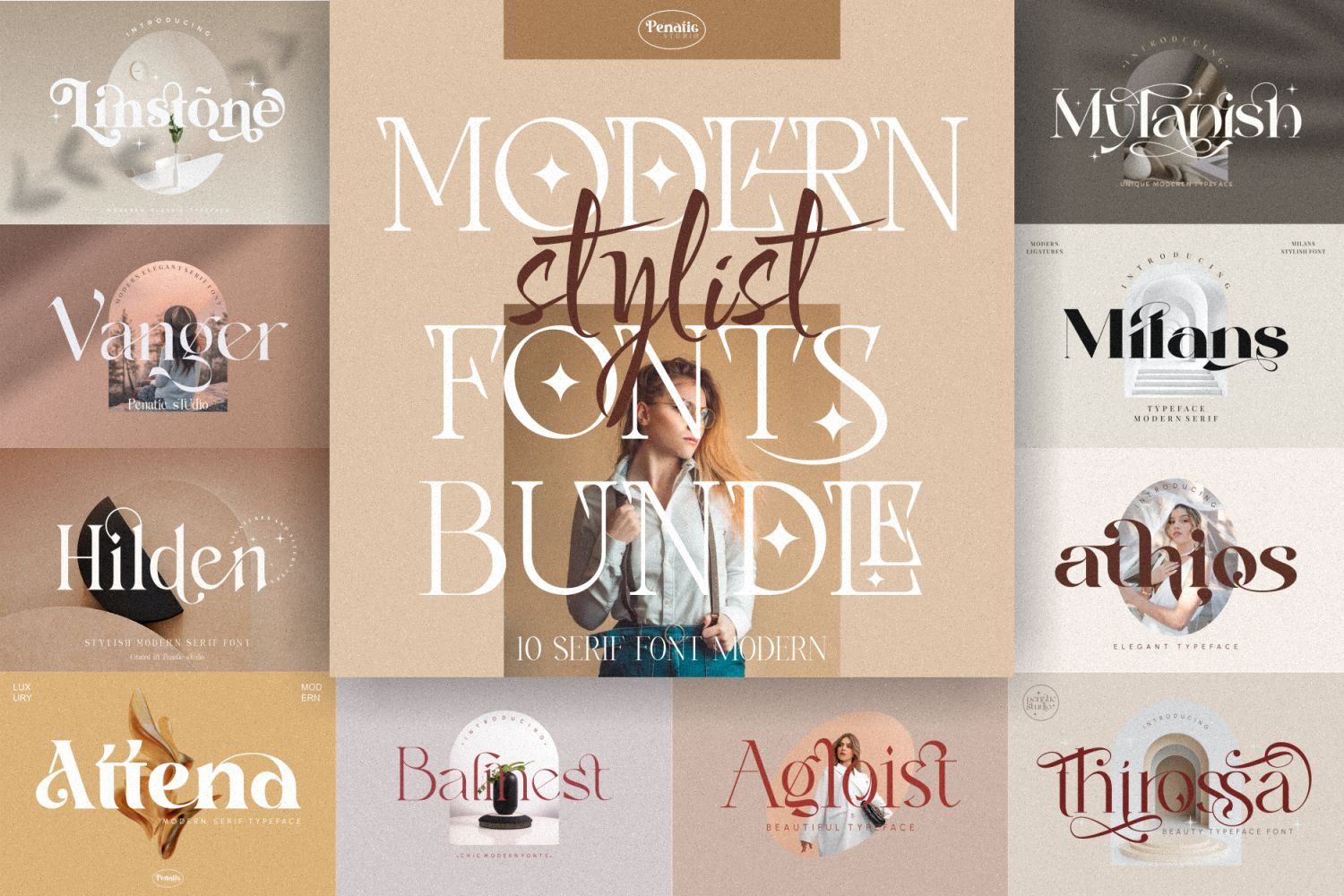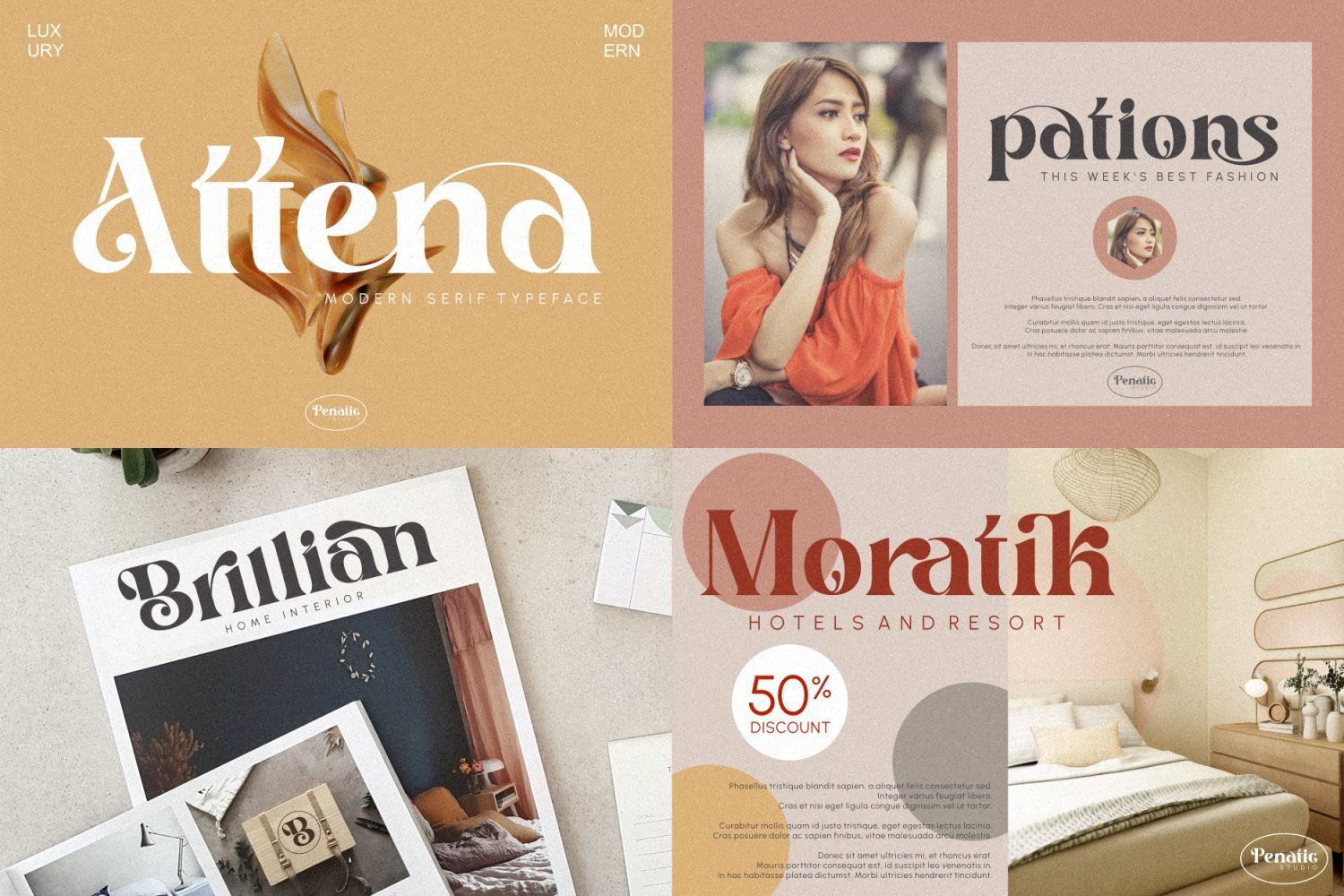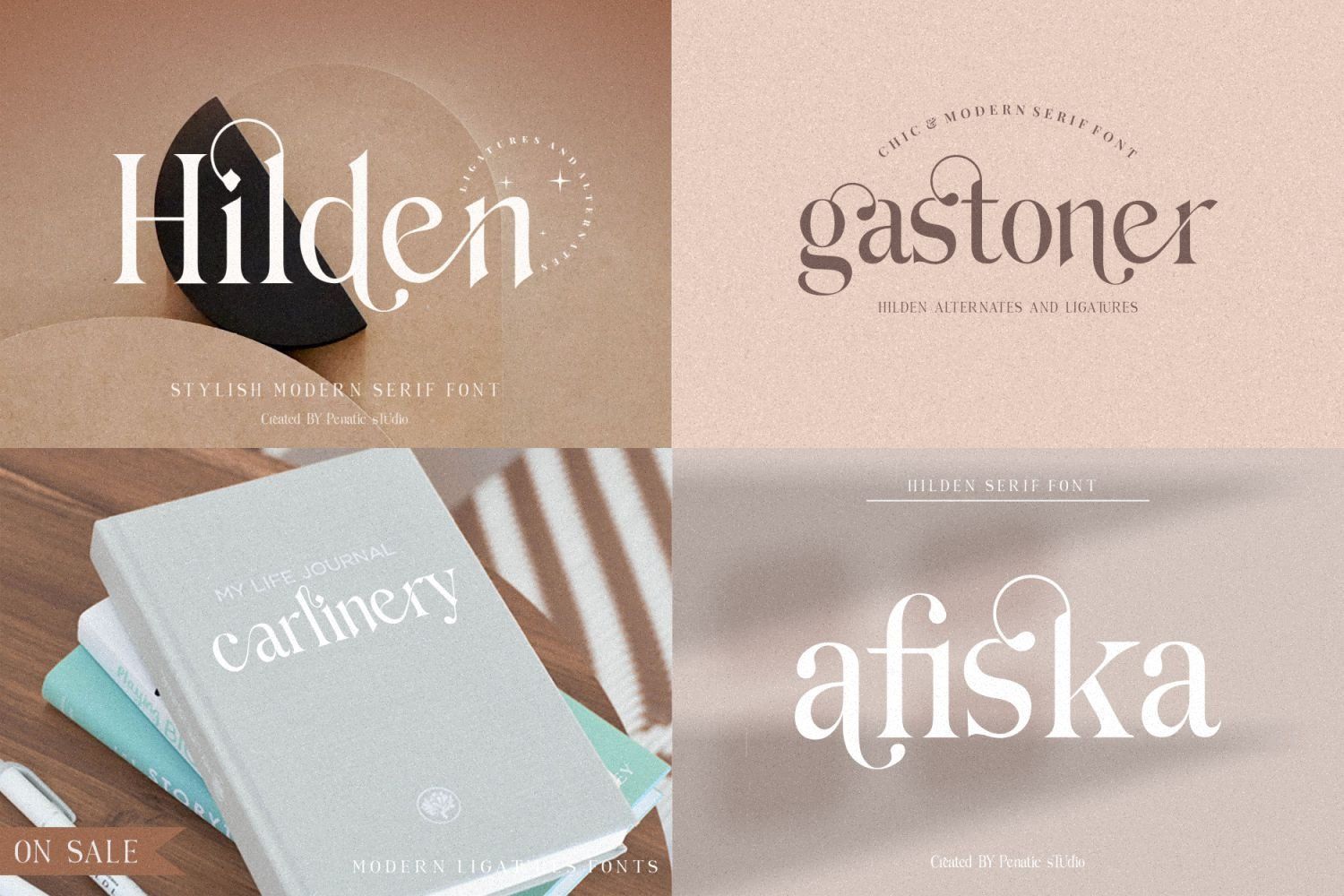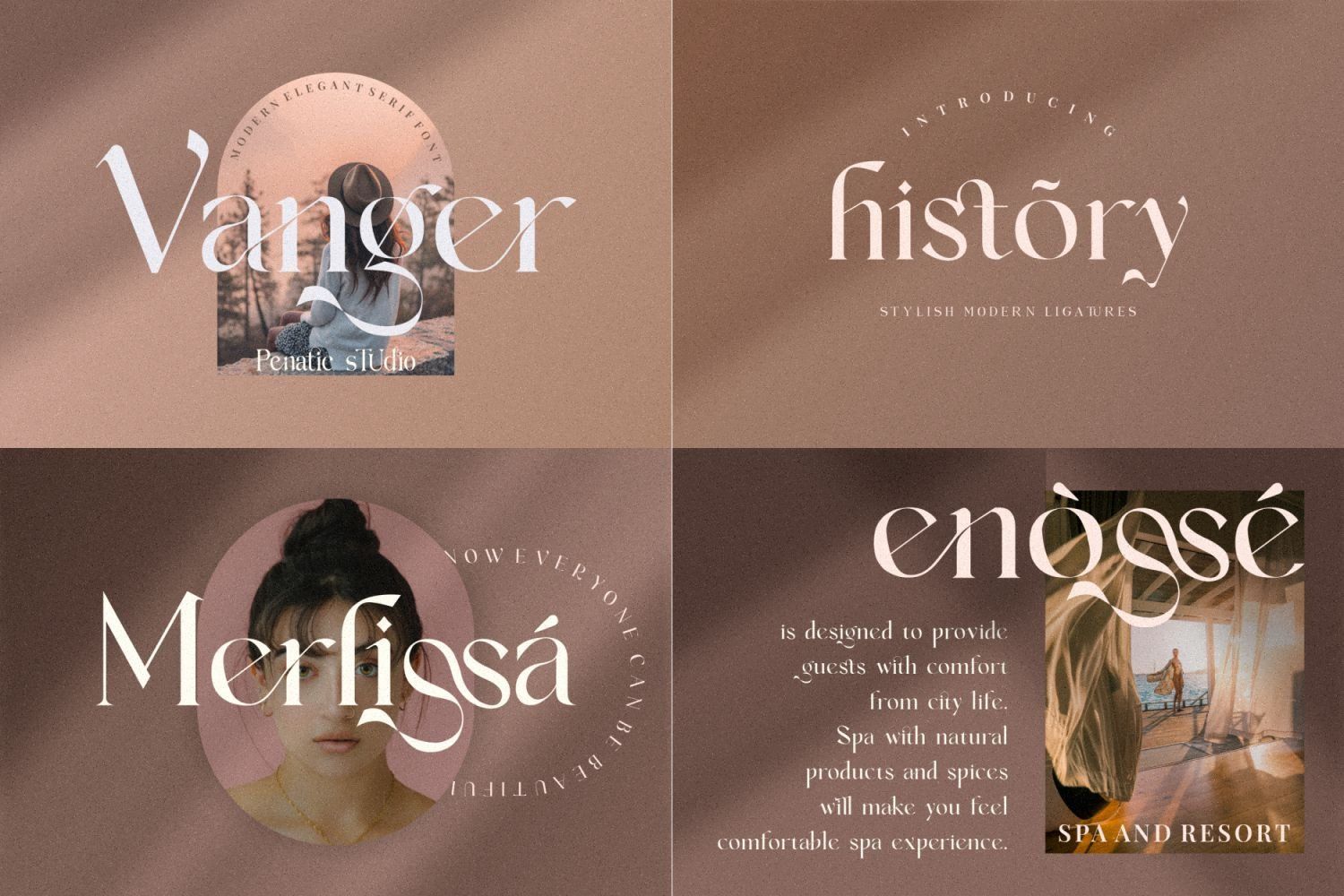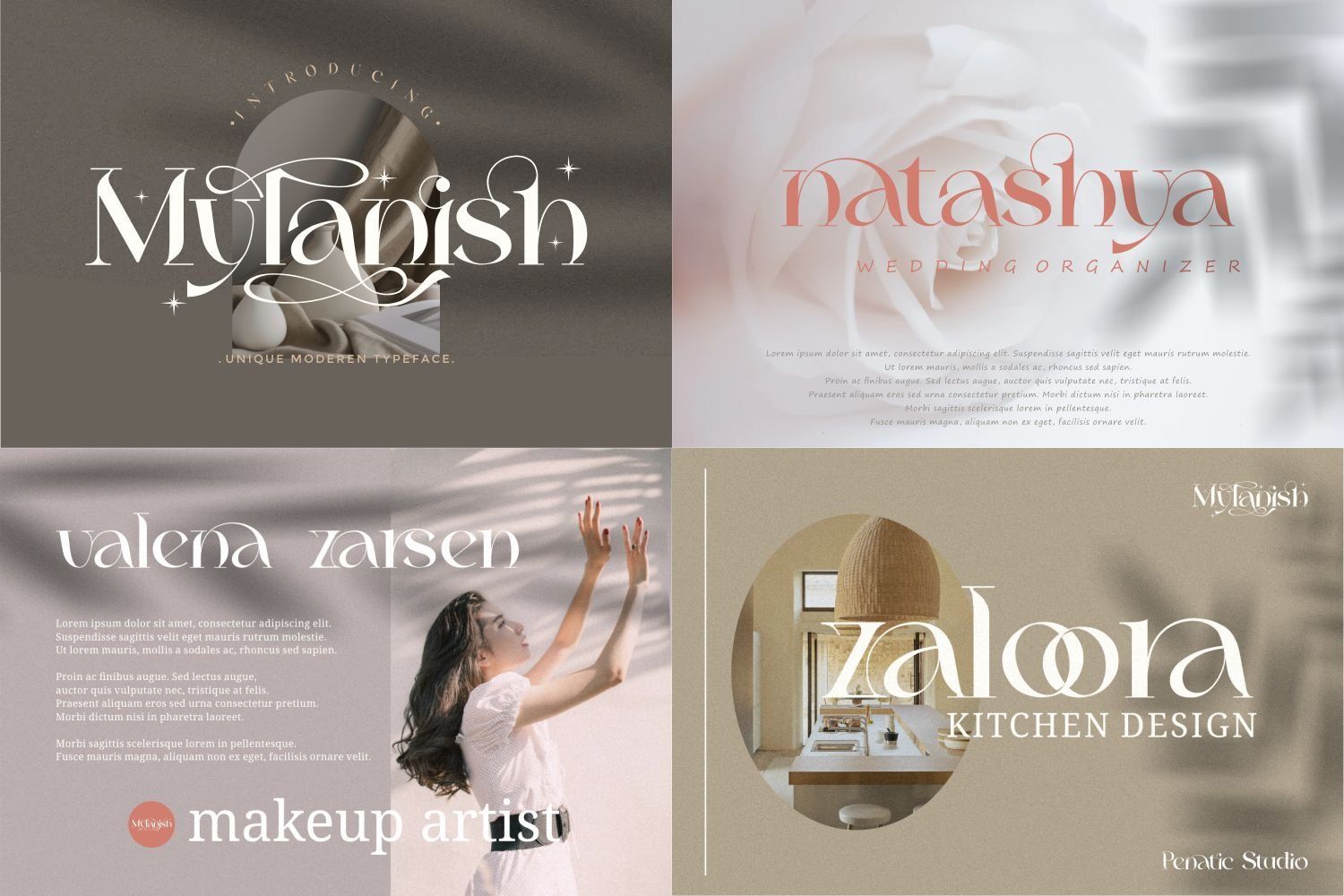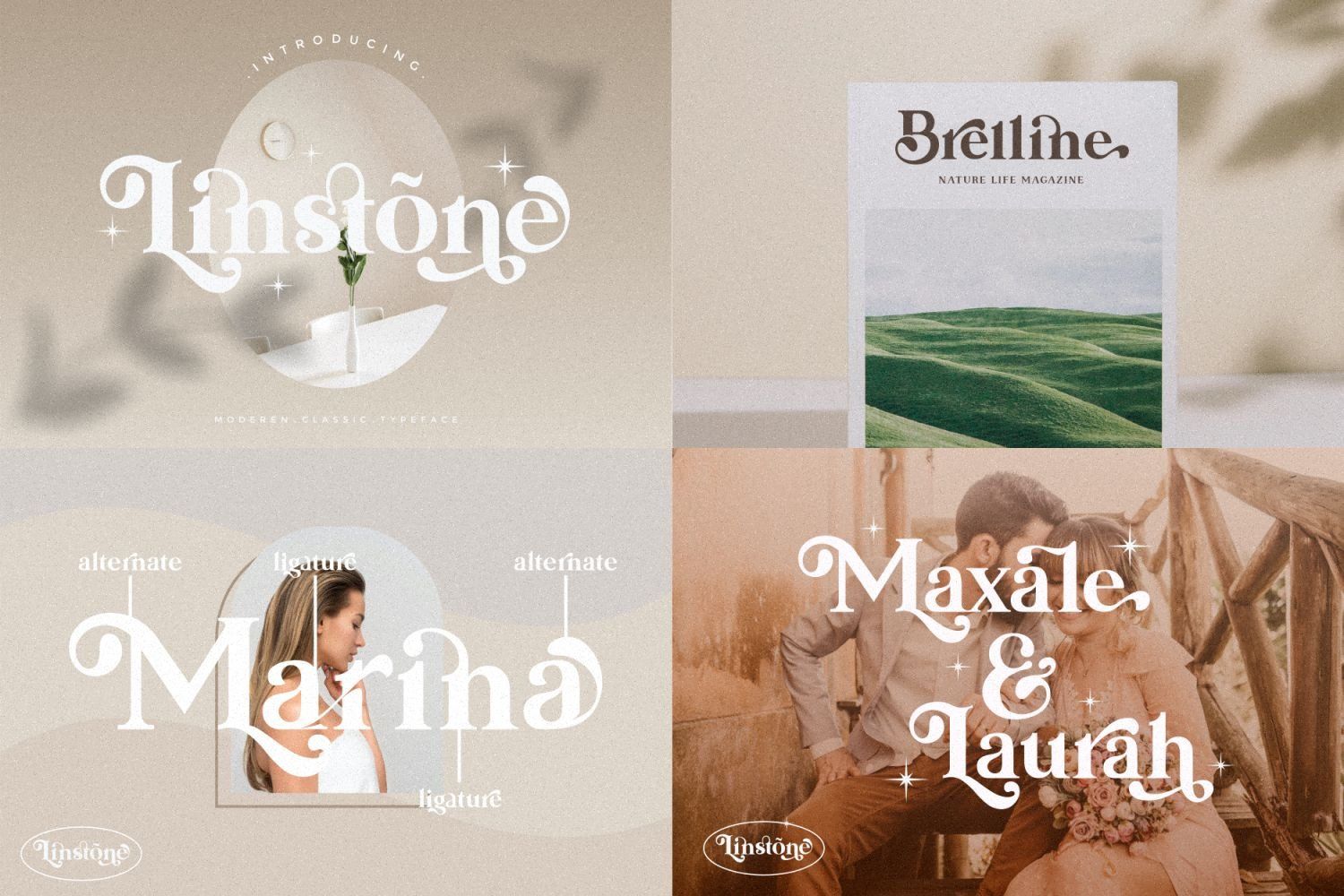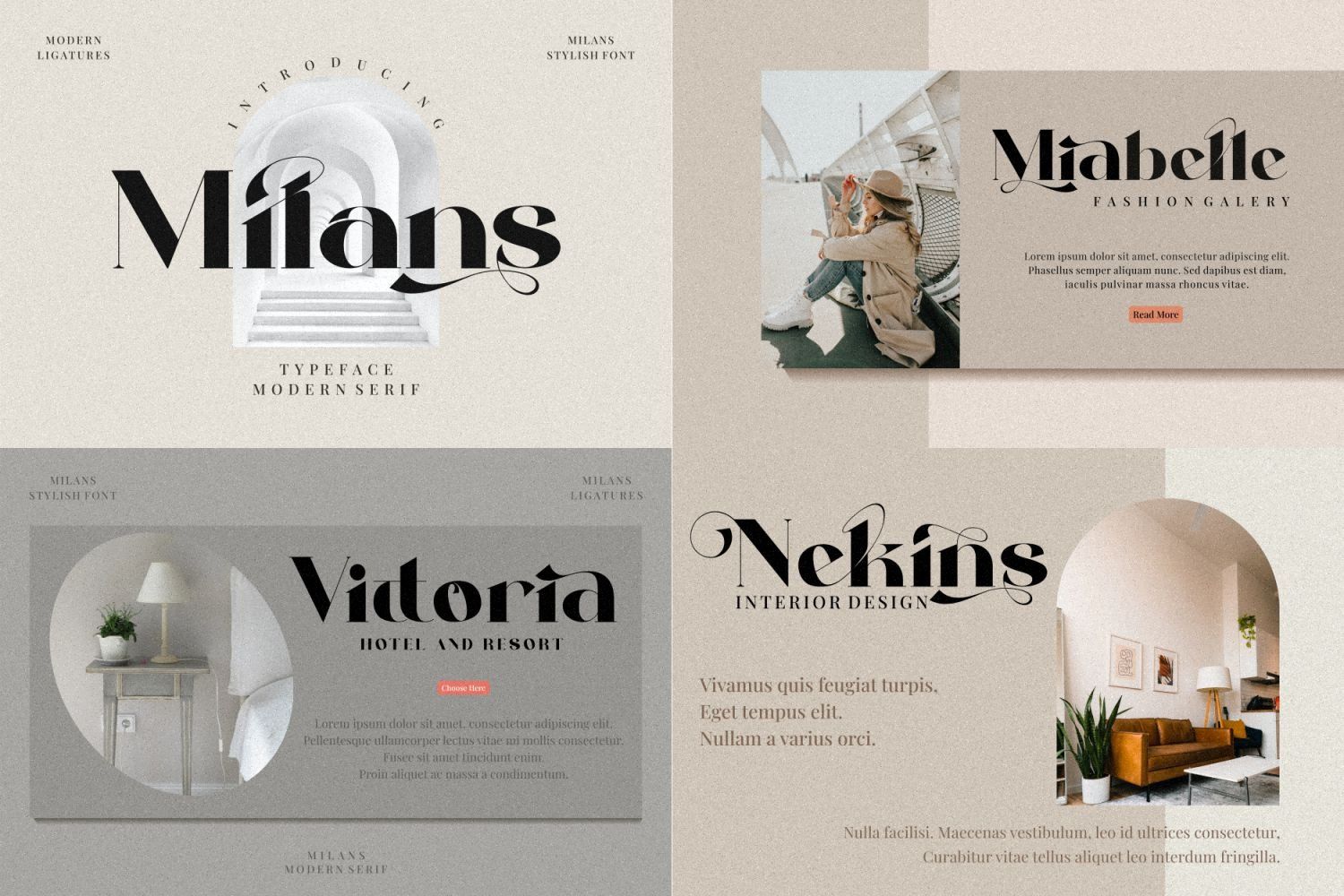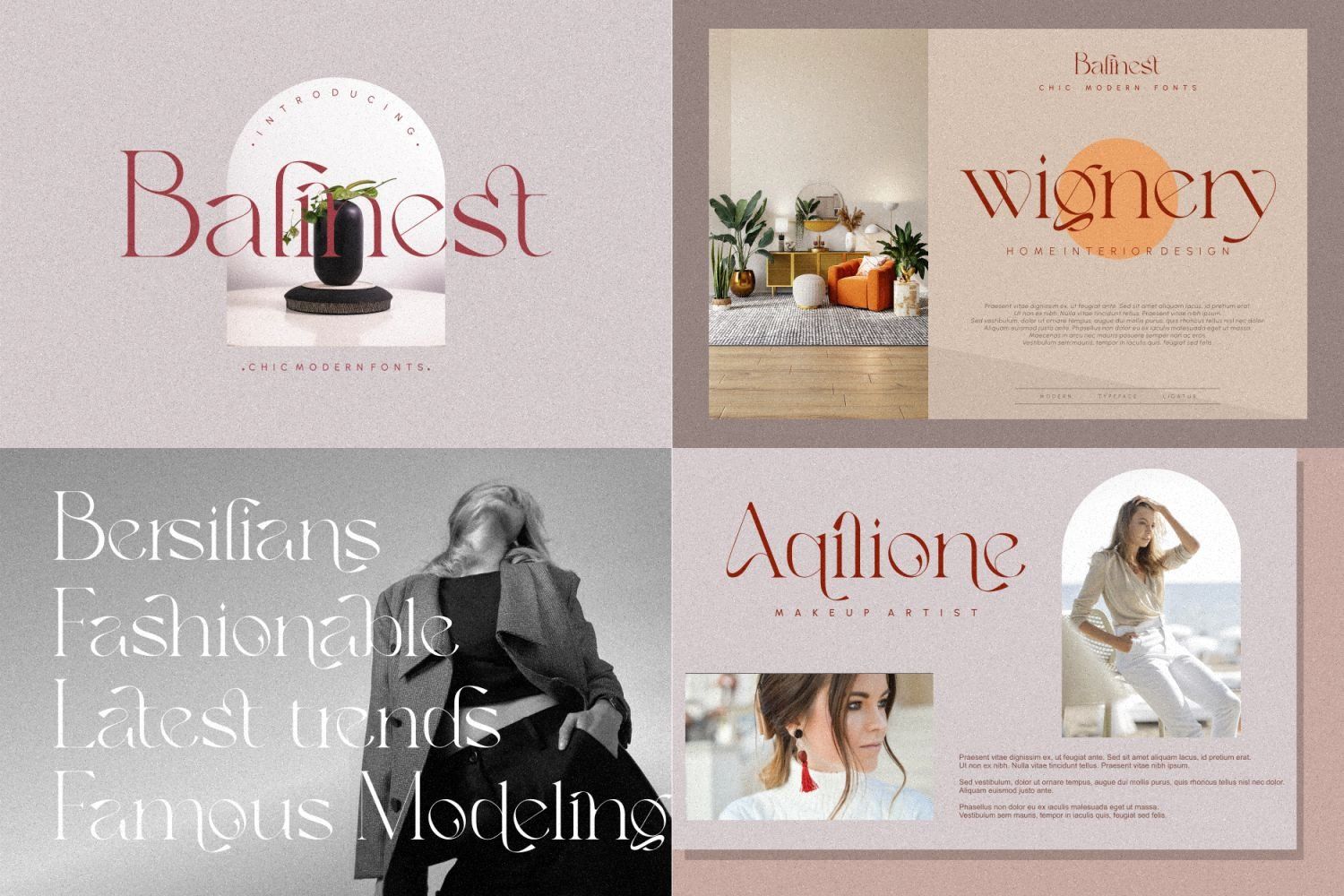
INTRODUCE collection of some very trendy modern fonts. You can get it for only $29 for 10 types of fonts. which is perfect for branding projects, fashion, logos, magazine imagery, jewelry, wedding invitations, posters, apparel, packaging, website headers, or simply as a stylish text overlay onto any background image.
• Attena _ modern serif typeface
• Thirossa _ beauty typeface
• Agloist _ Beautiful Typeface
• Athios - Elegant Typeface
• Balinest _ chic modern font
• Milans_Typeface Modern Serif
• Mylanish _ unique modern typeface
• Linstone - modern serif
• Vanger _ modern serif font
• Hilden - stylish modern serif font